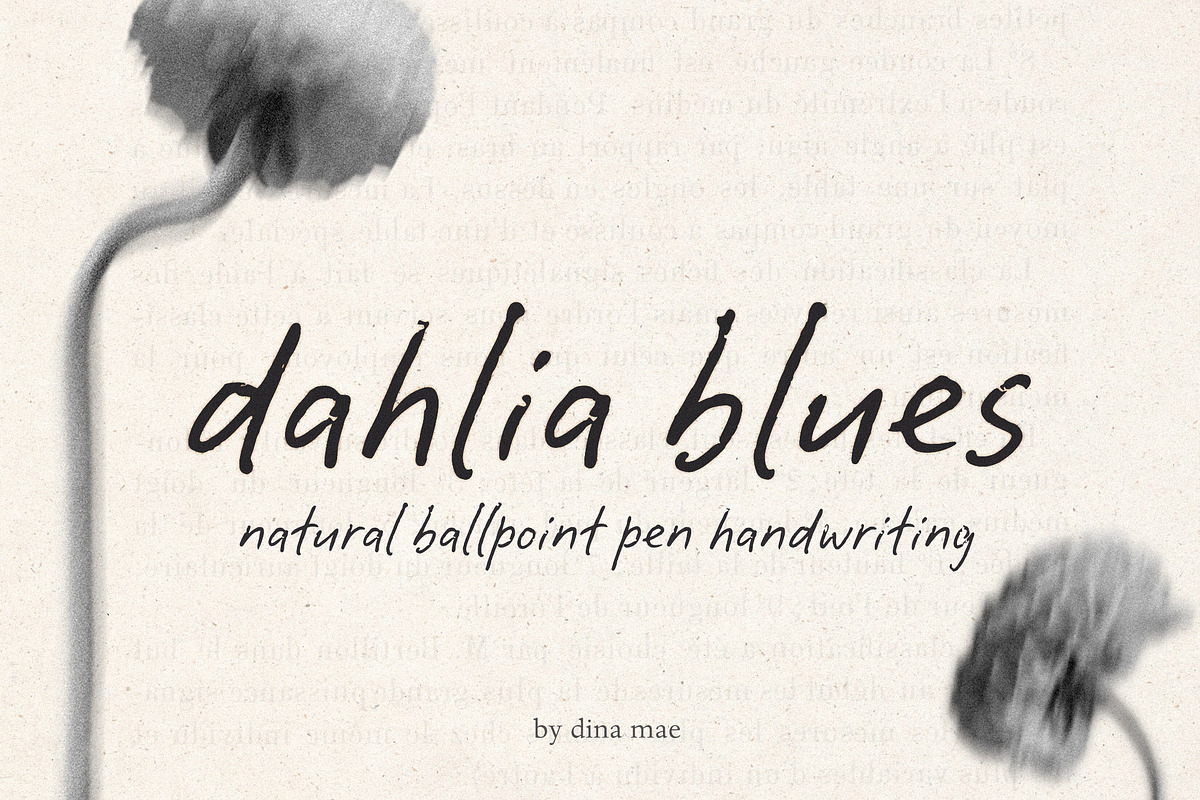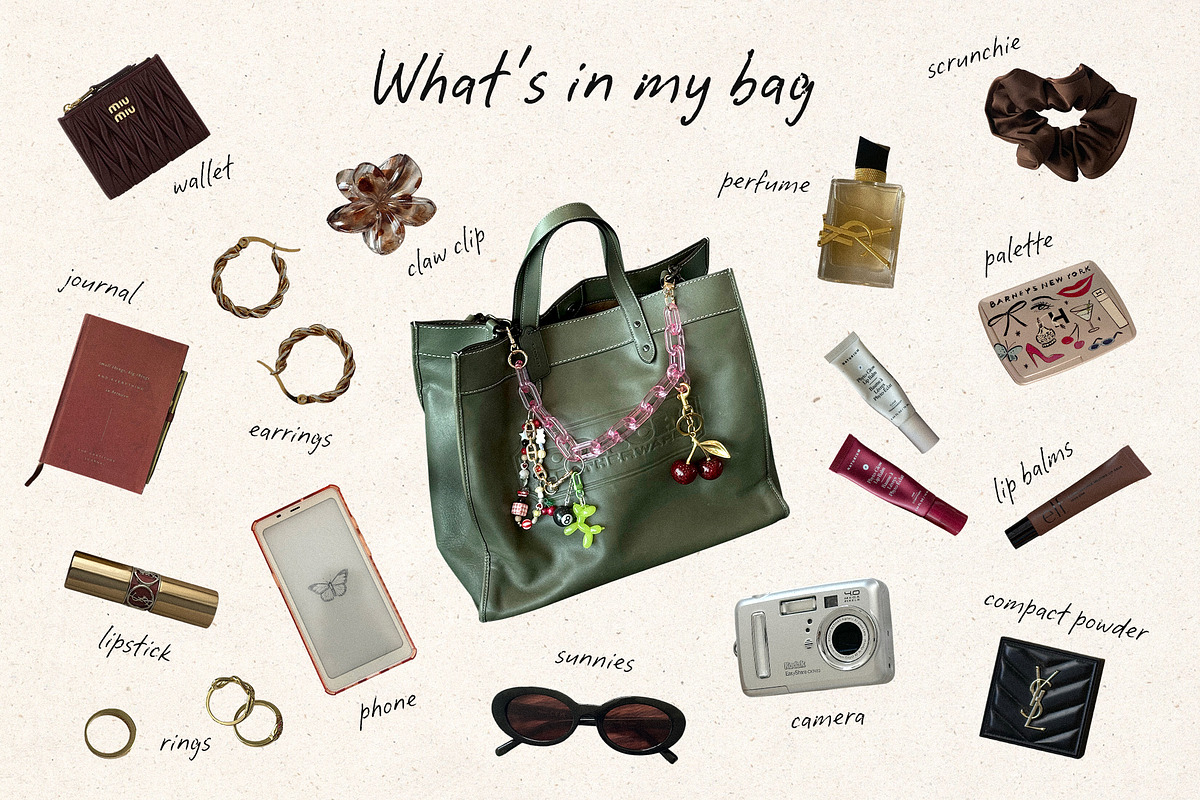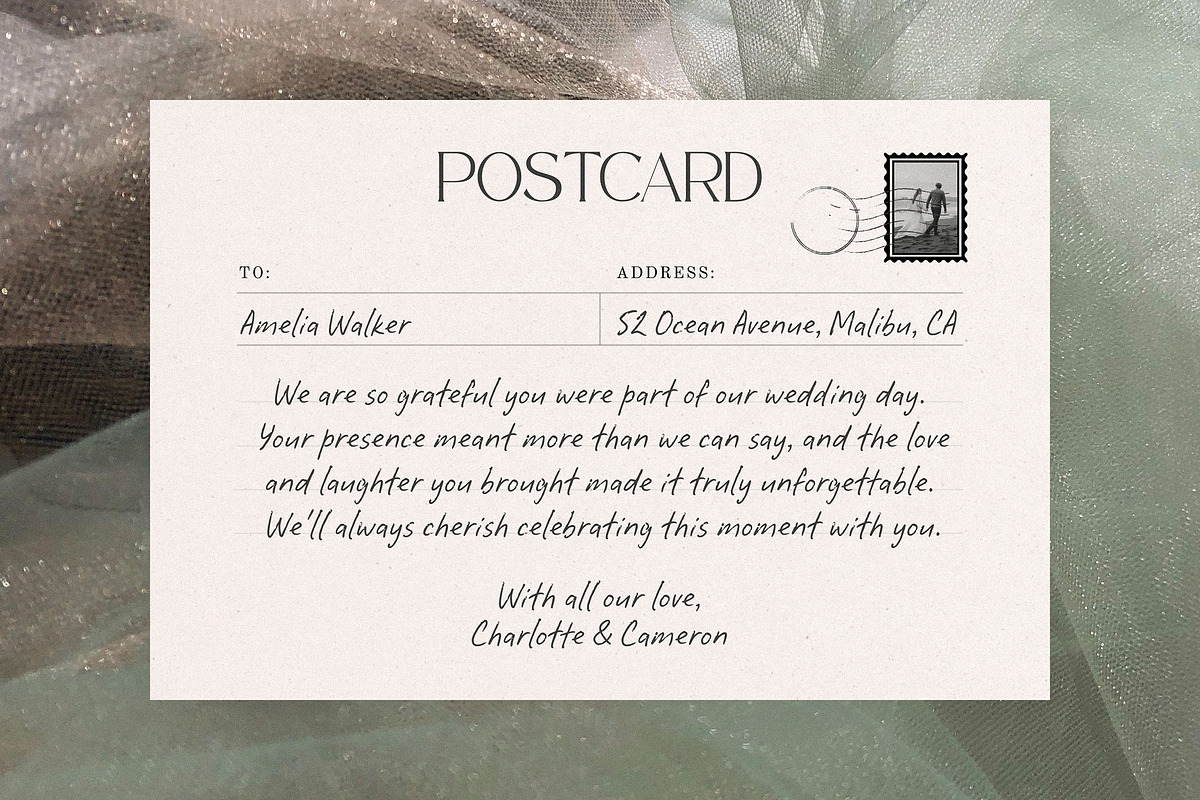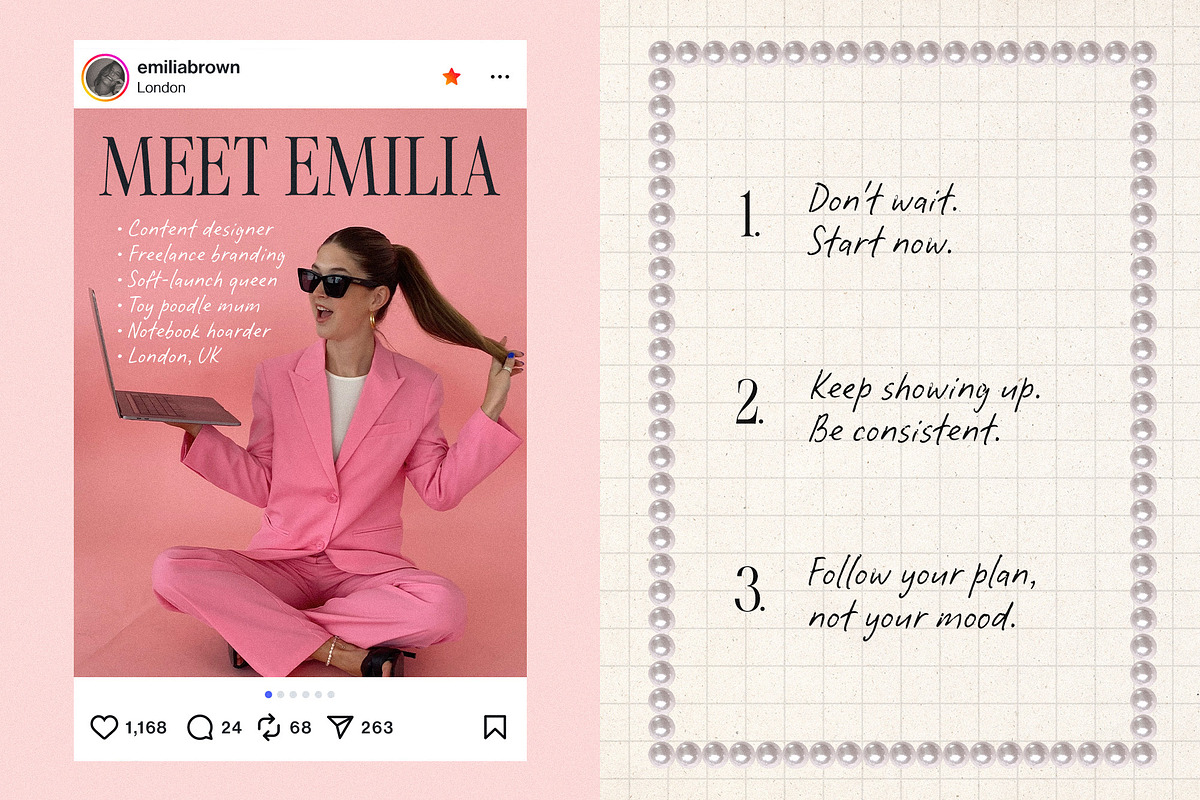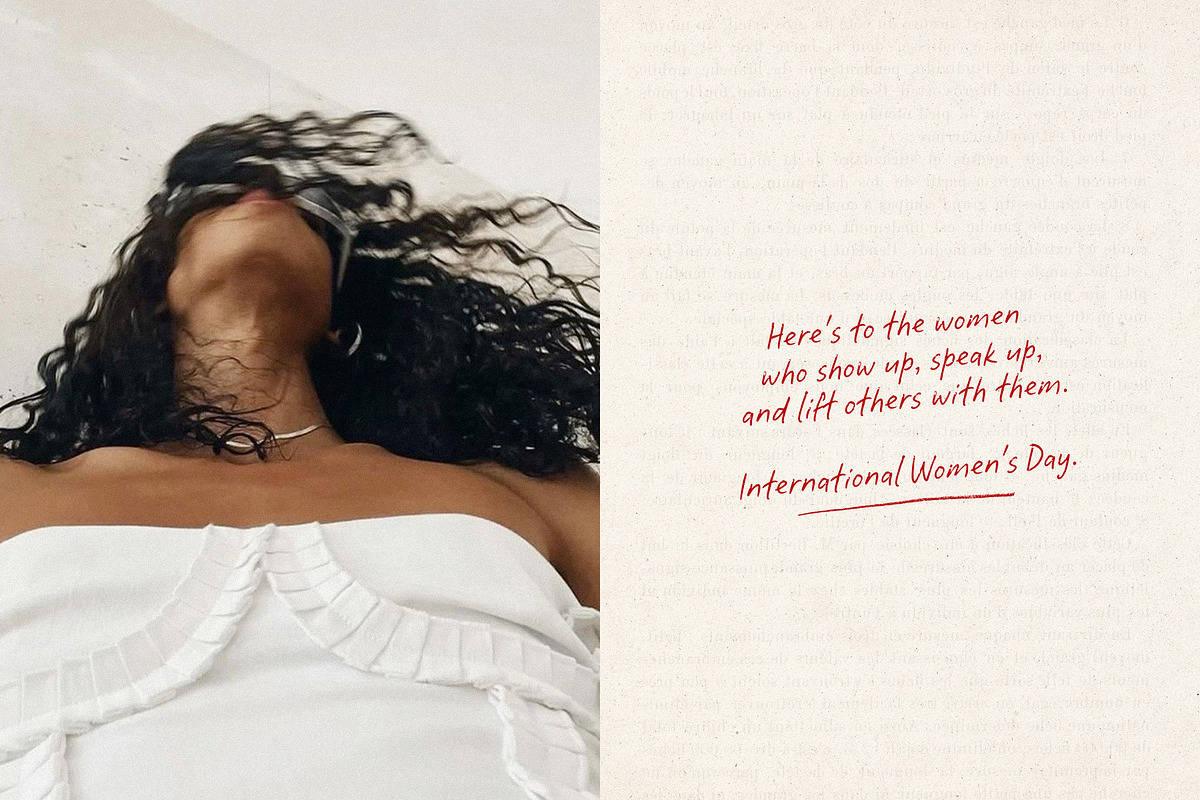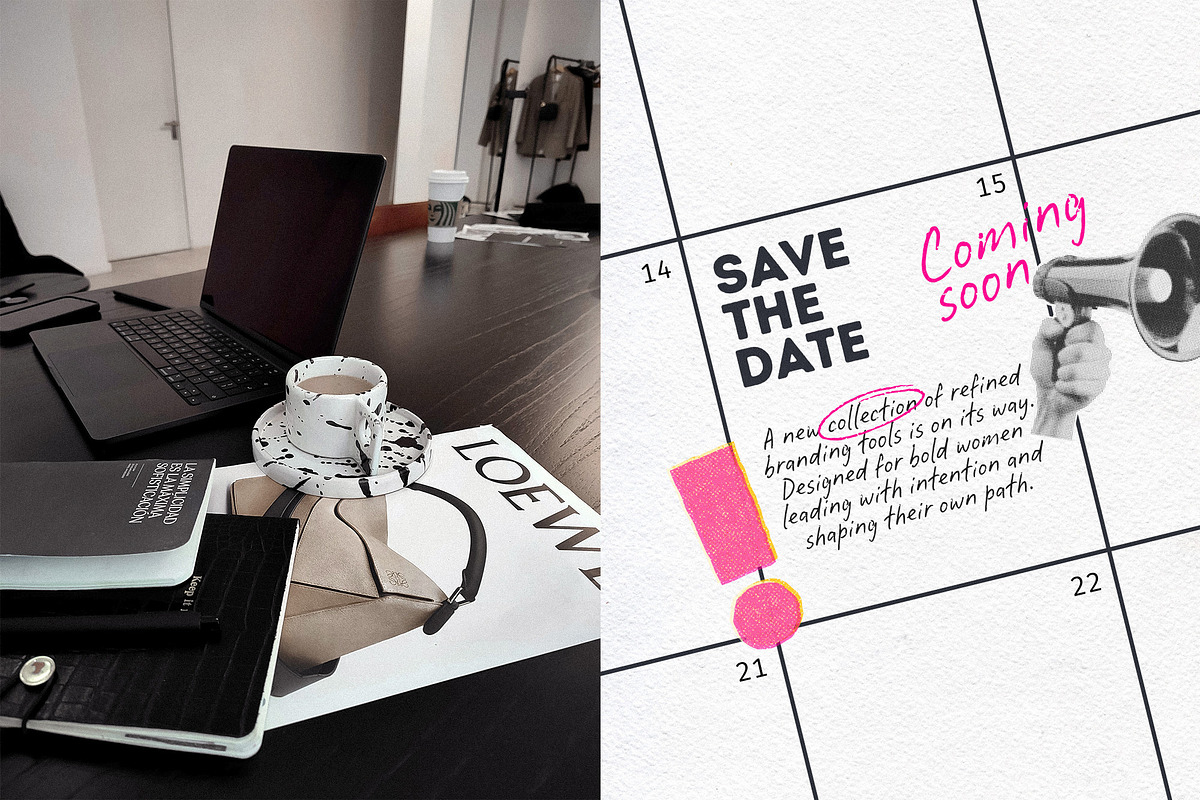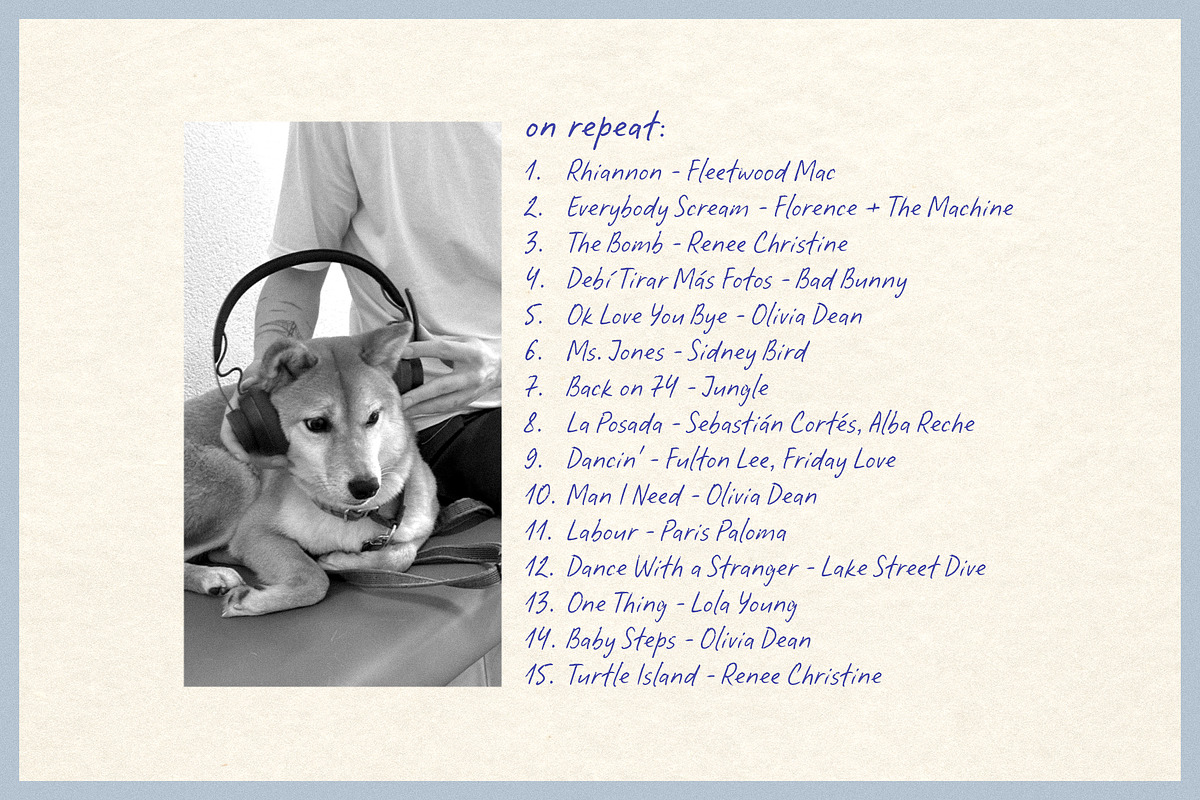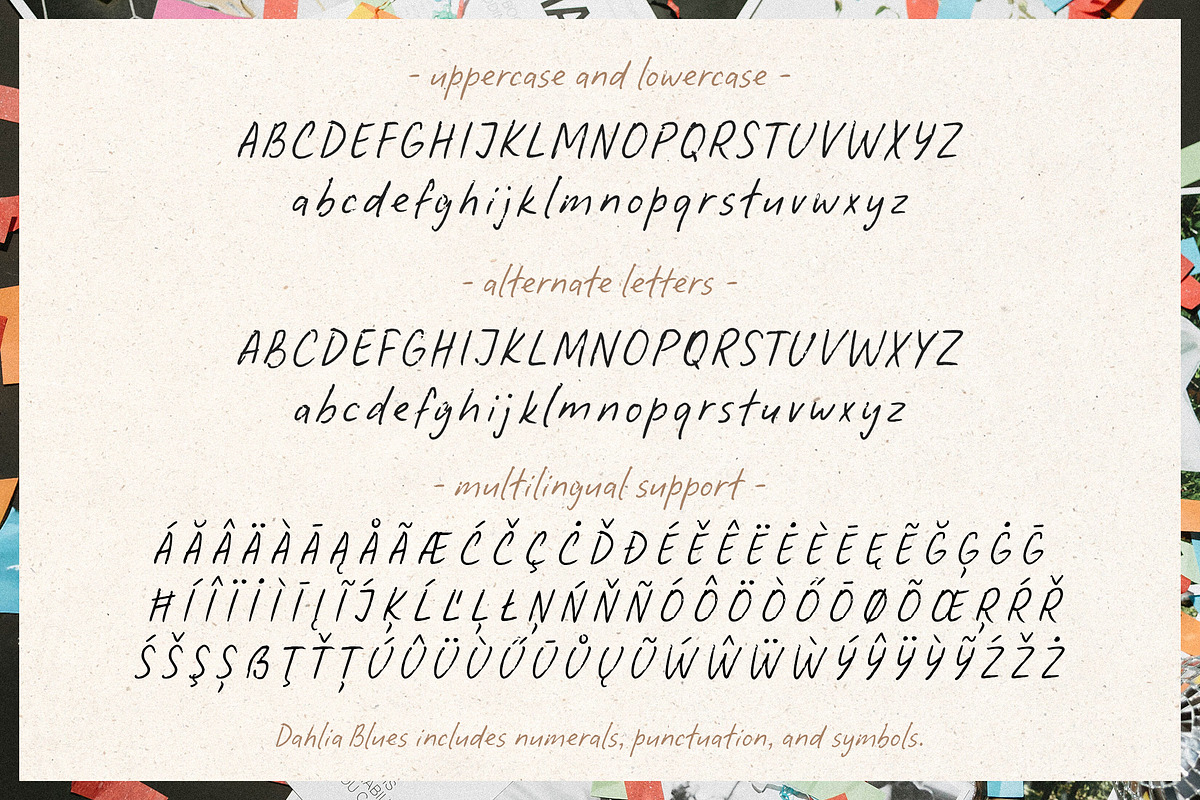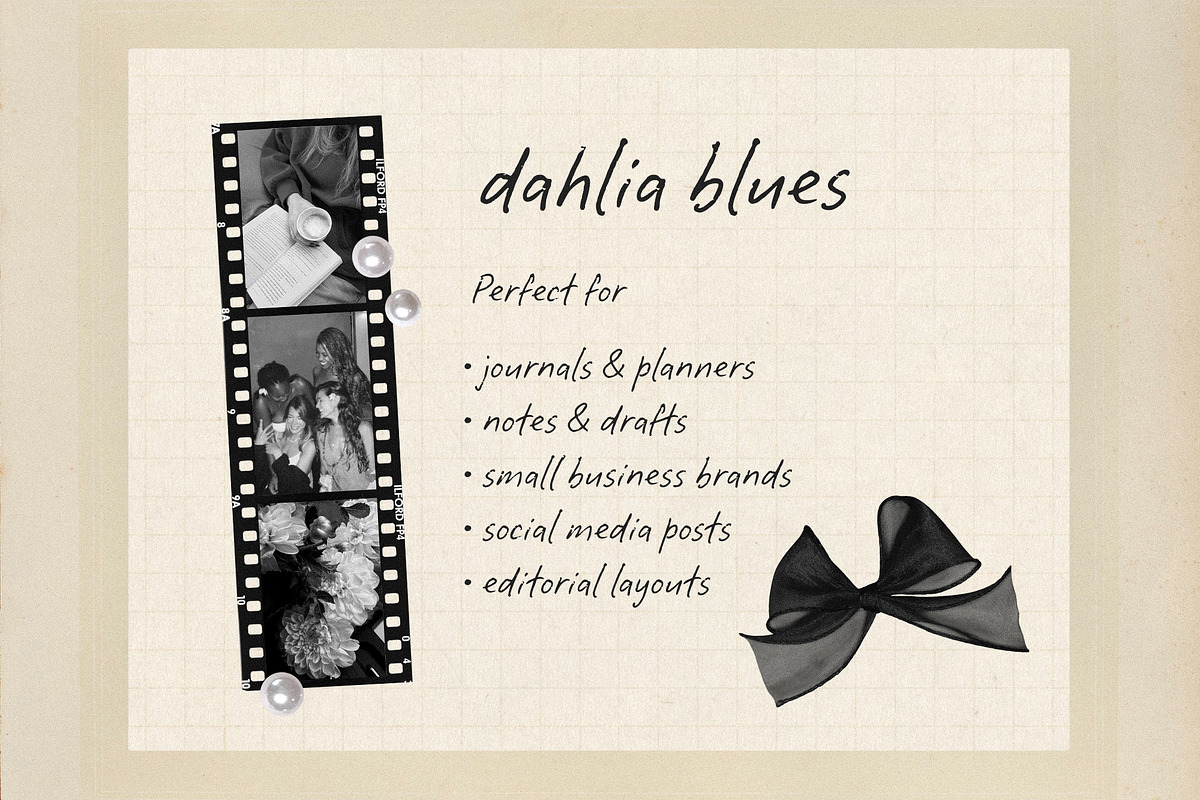
Dahlia Blues is a natural handwritten font with an expressive, slightly imperfect ink feel. Created with a real ballpoint biro pen on paper, it brings warmth, confidence, and personality to your work - with genuine strokes, pressure shifts, and subtle human quirks.
Use it for branding and logos, packaging, editorial design, social media posts, quotes and posters, invitations, greeting cards, product packaging, and lifestyle content. It’s especially perfect for designers who want a handwritten look that feels authentic, modern, and easy to use.
Uppercase & lowercase letters
Contextual alternates for a more natural handwritten flow
Dahlia Blues is a great choice for small business owners, creators, and brands that want their typography to feel personal, confident, and beautifully human.